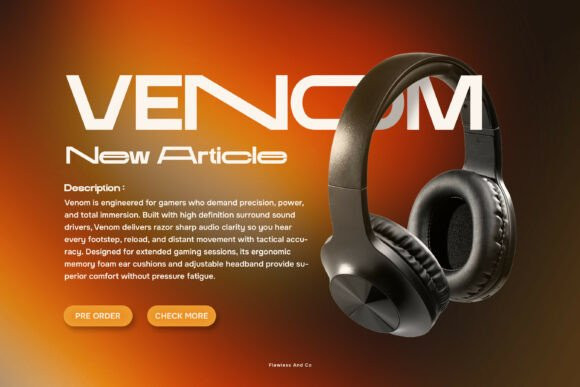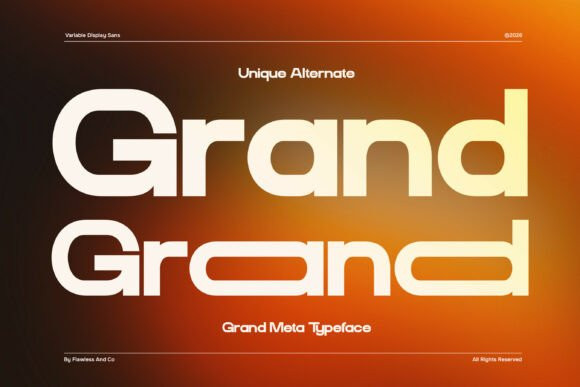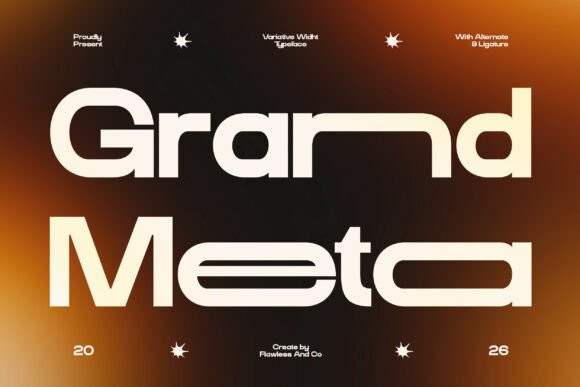
Grand Meta Font
Grand Meta Font is a modern variative width sans serif font designed to bring flexibility, clarity, and dynamic style into your typography. Featuring a unique range of width variations, this typeface allows you to explore creative compositions—from compact and space-saving layouts to wide and expressive headlines—while maintaining a consistent and cohesive look.